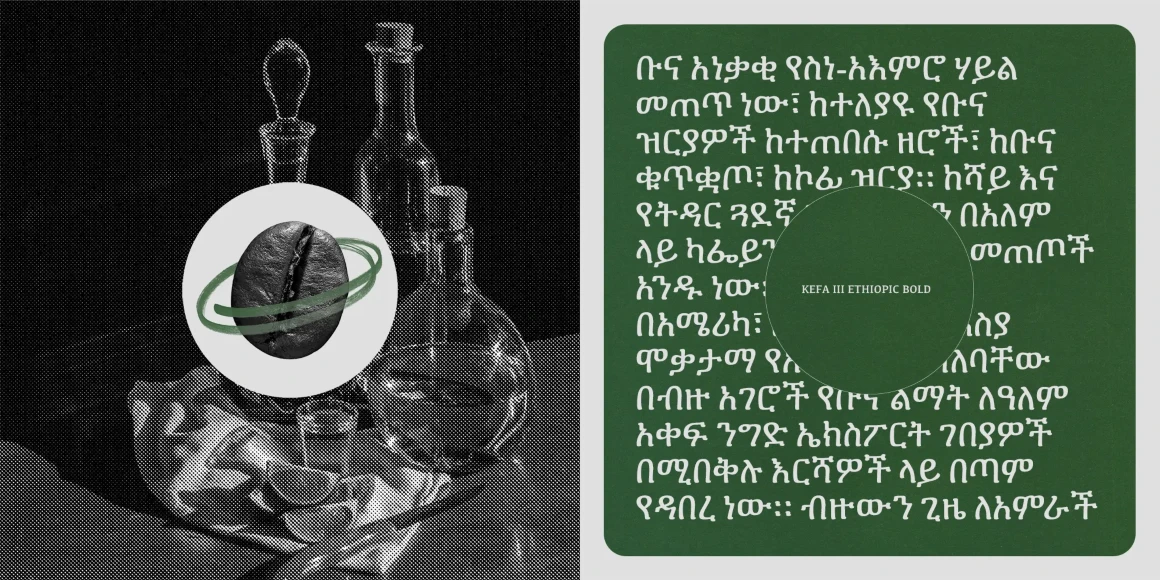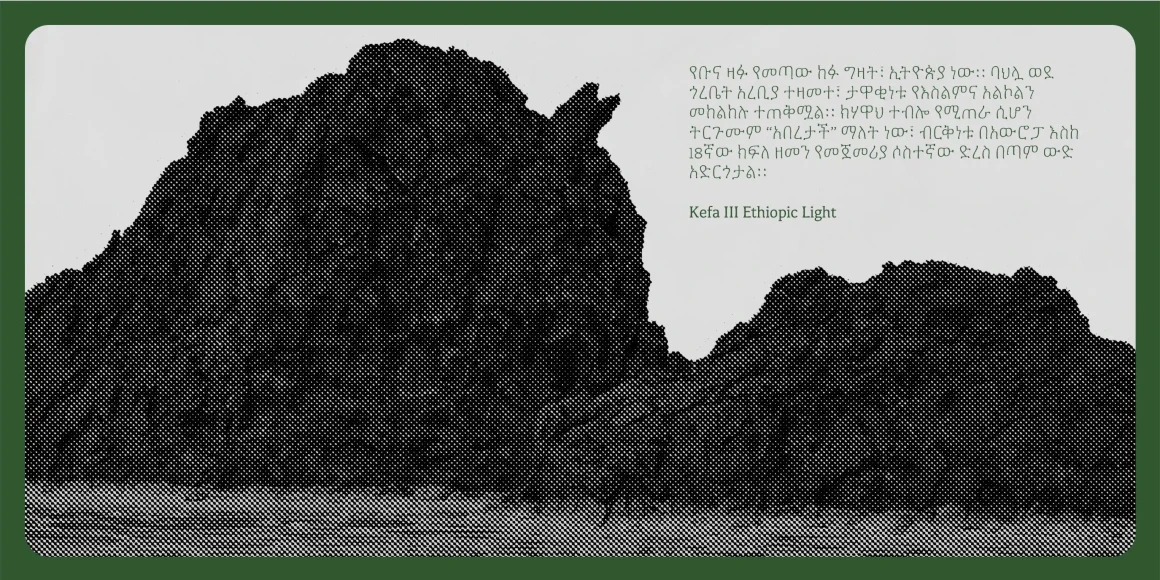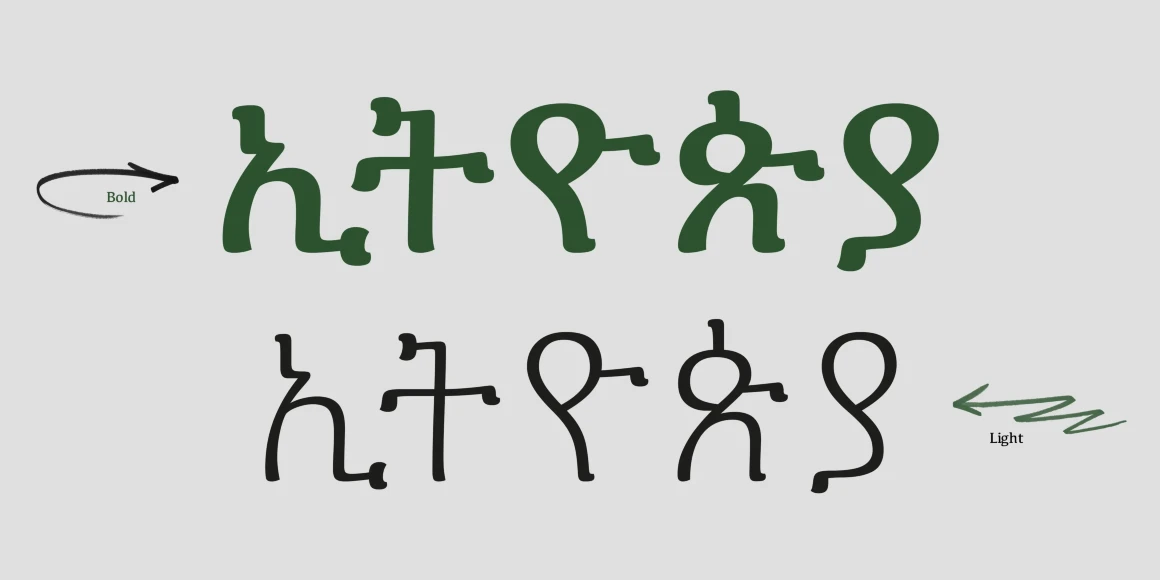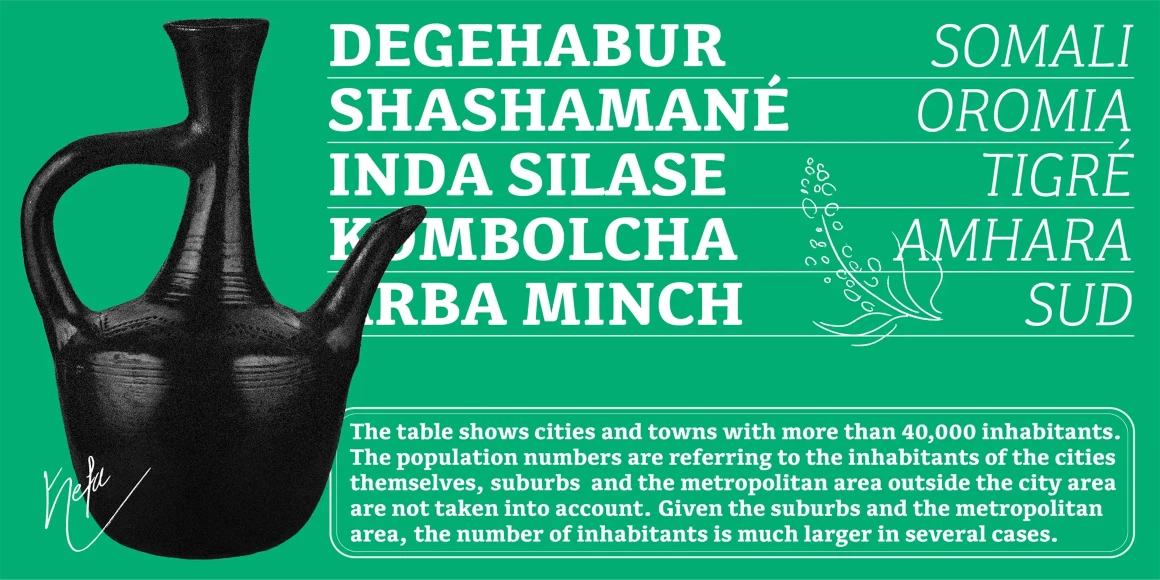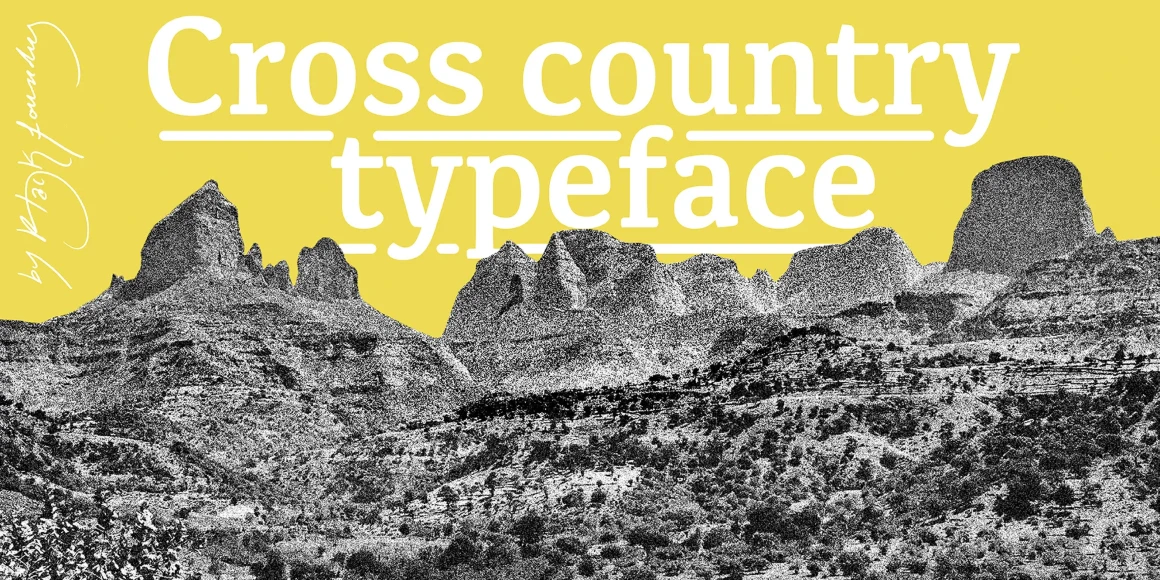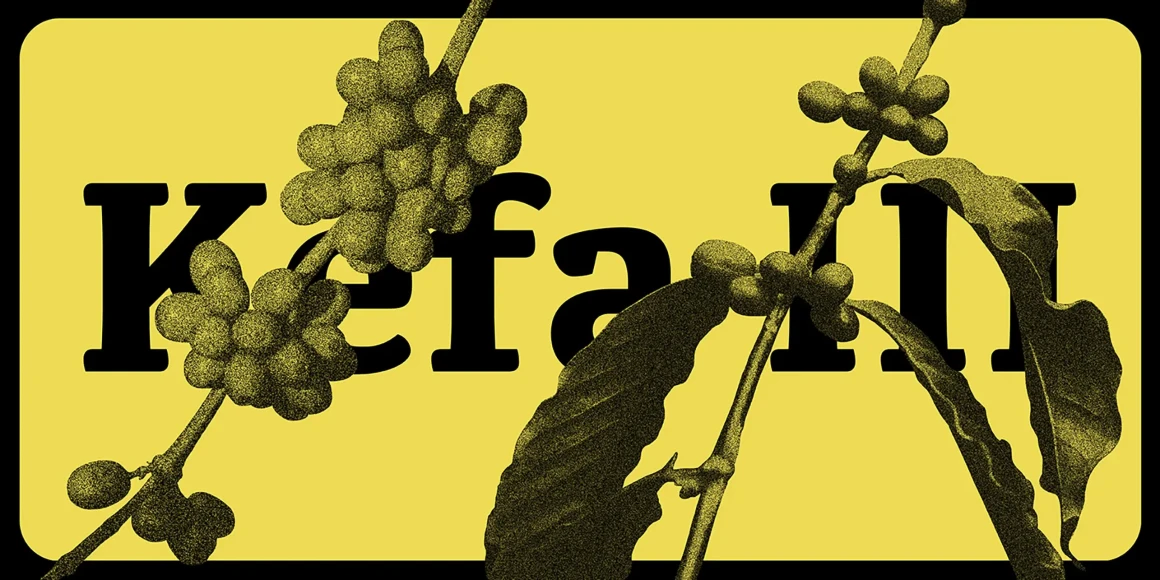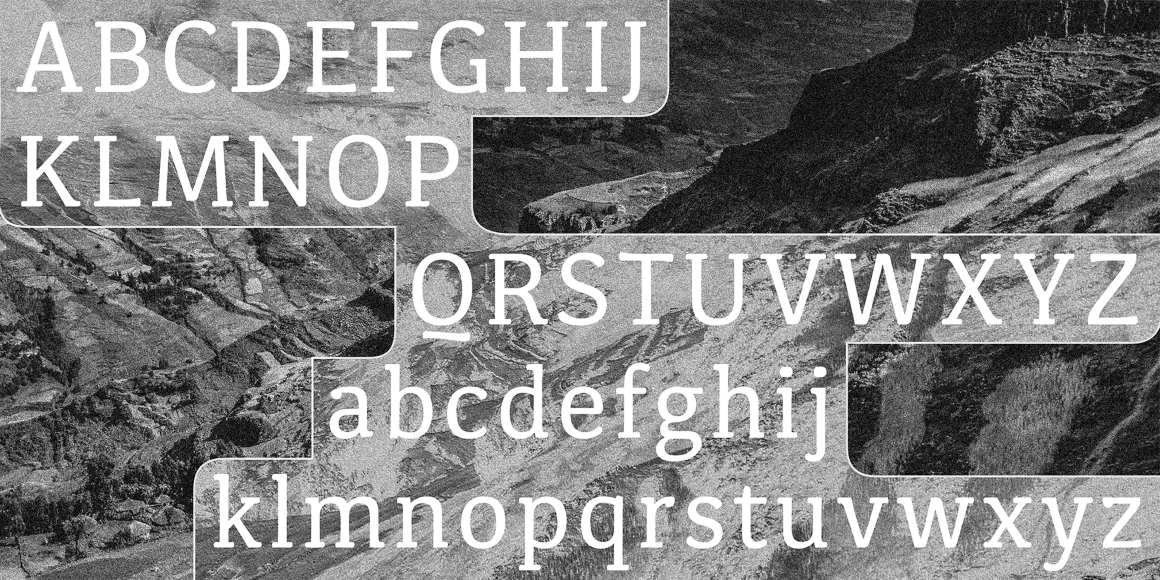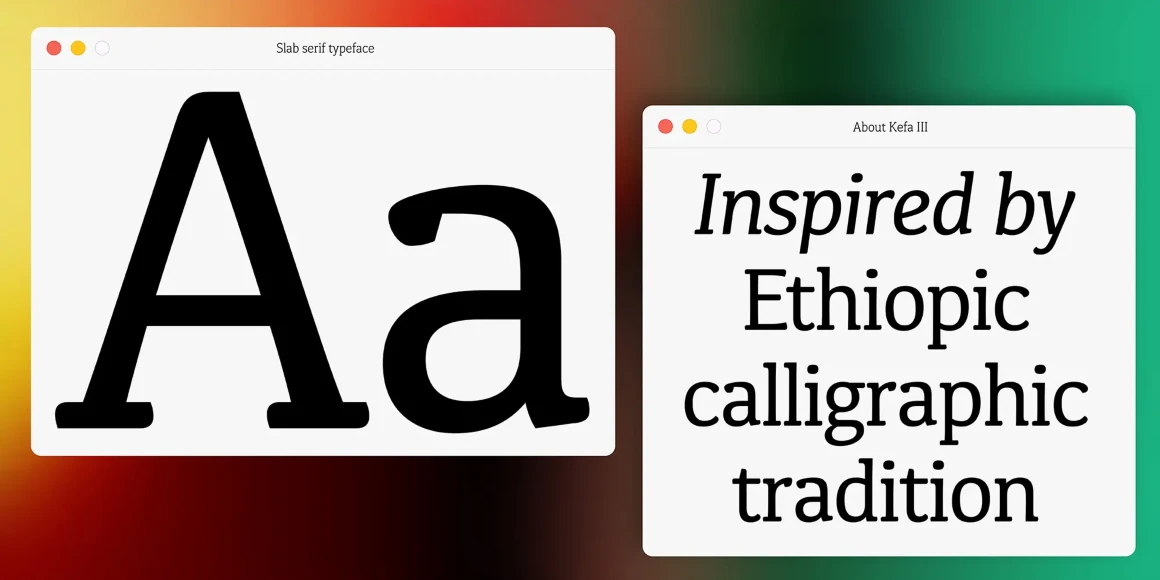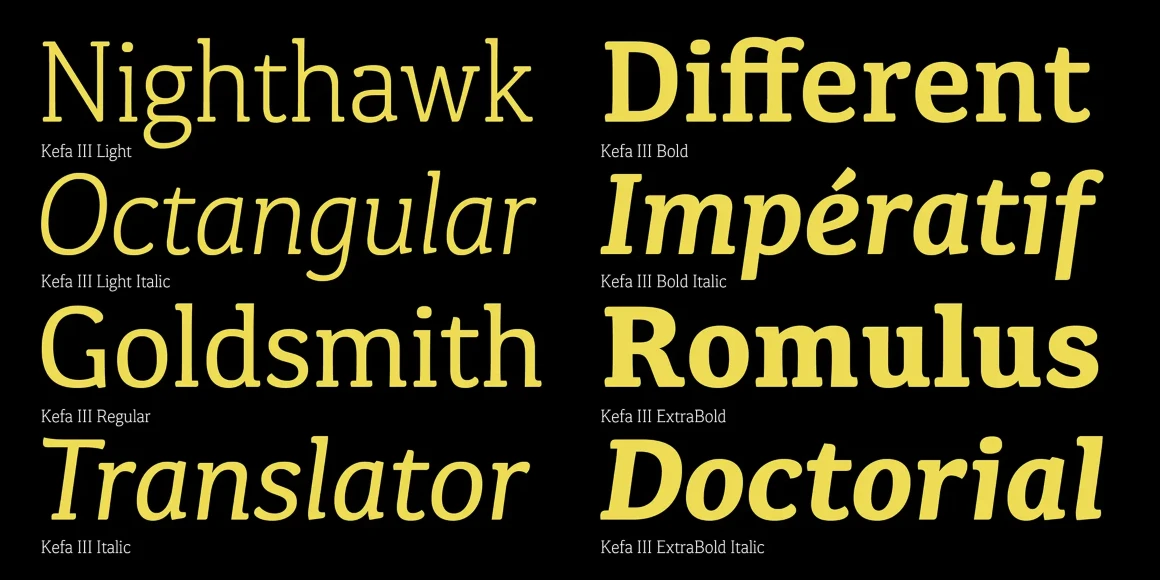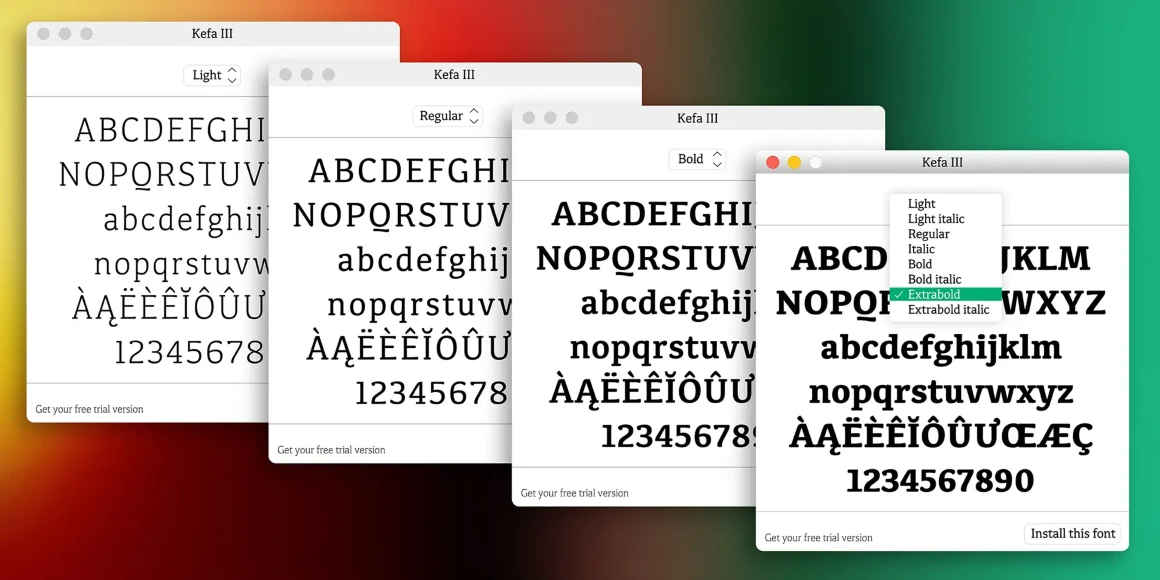
Kefa III
Kefa III is an elegantly modern blend of slab serif origins with Latin calligraphic tradition and Ethiopic heritage. Crisp curves, a tall x-height, and narrow proportions ensure clarity in dense text and display typography. A third version of the Apple System font, it has been updated to Black[Foundry]’s standard glyph set, which includes Vietnamese, currencies, fractions, arrows, and case-sensitive punctuation. Available in four weights with italics and as a variable font for precise customization.